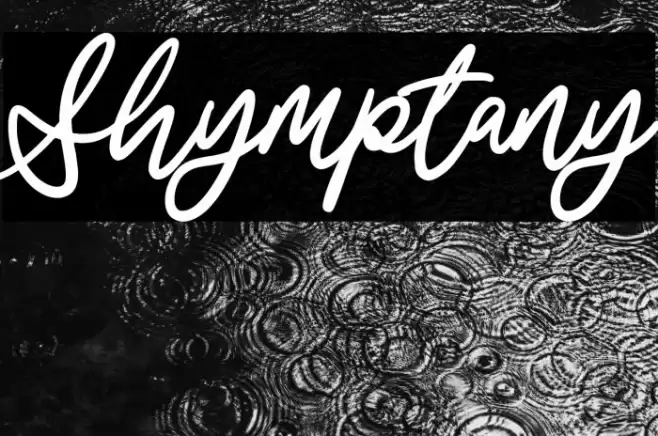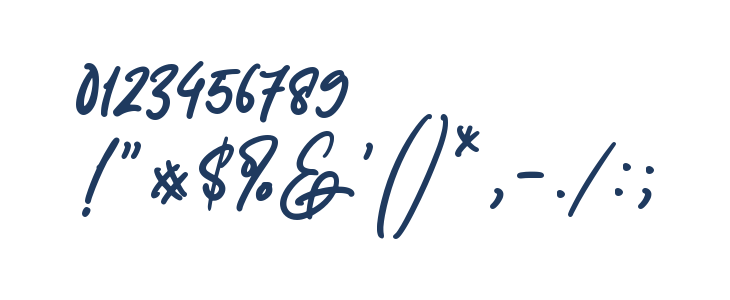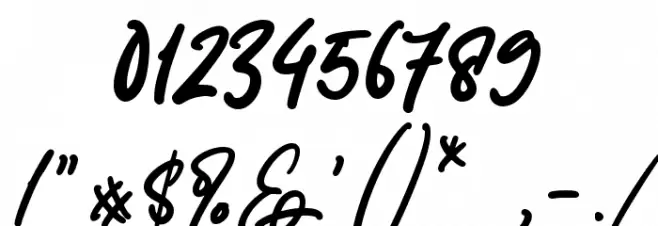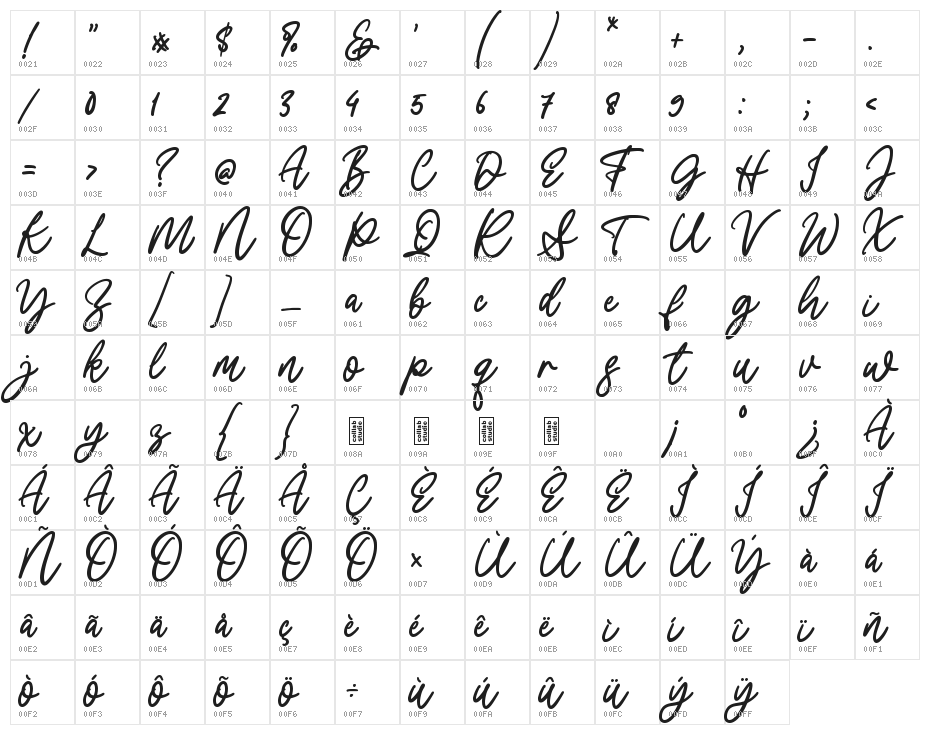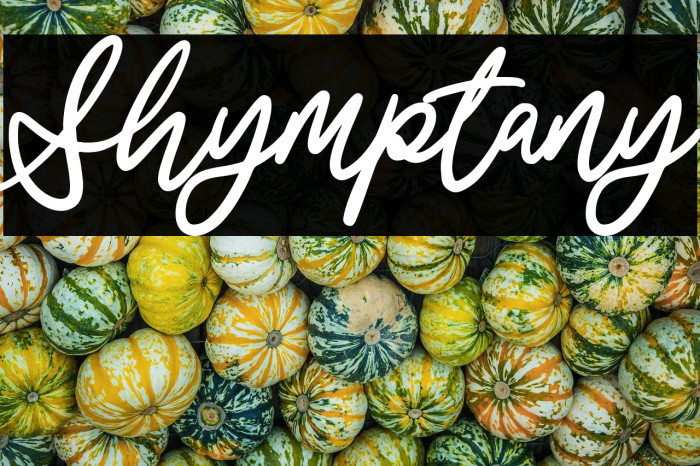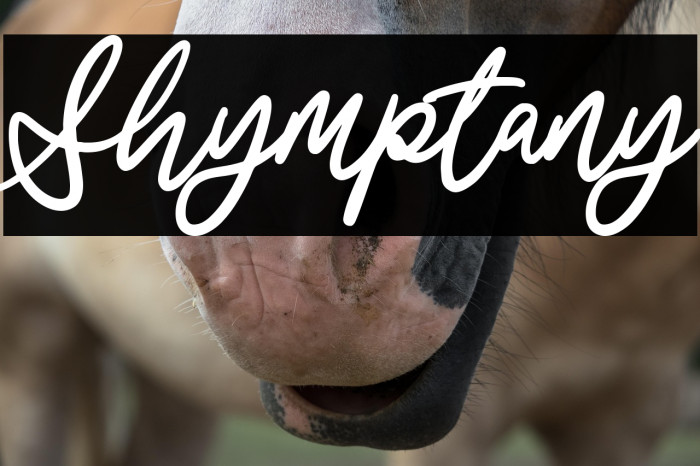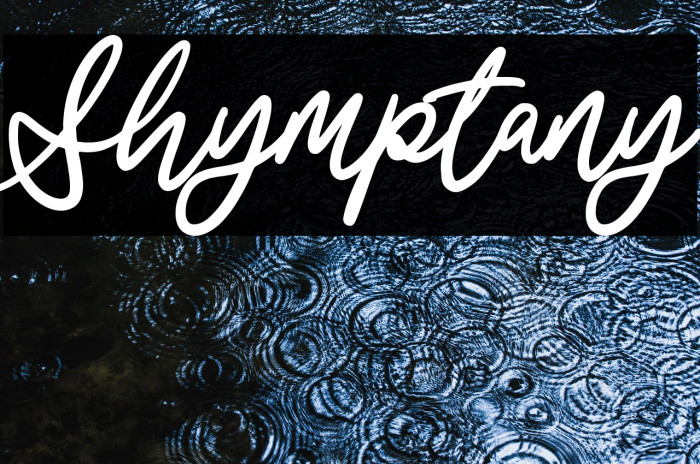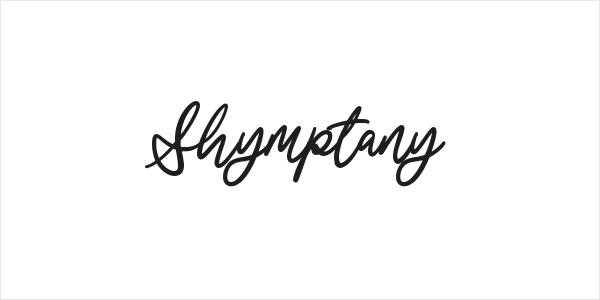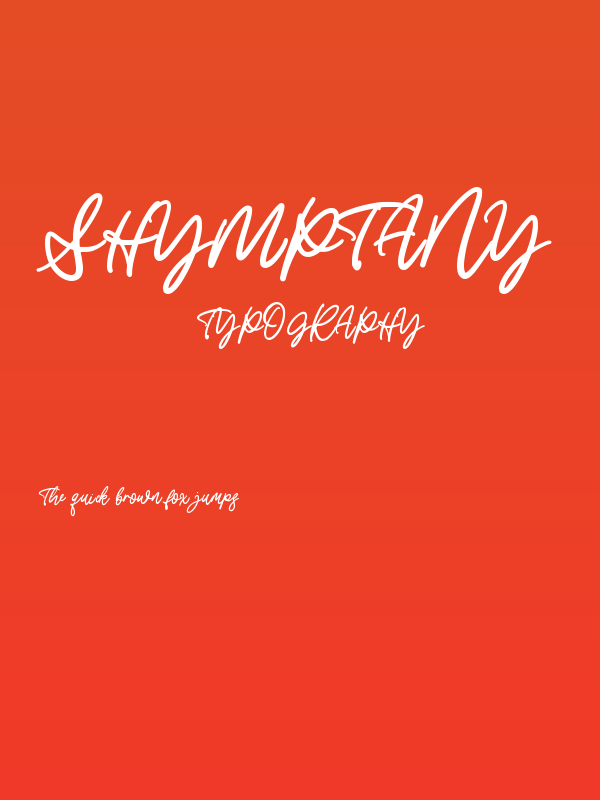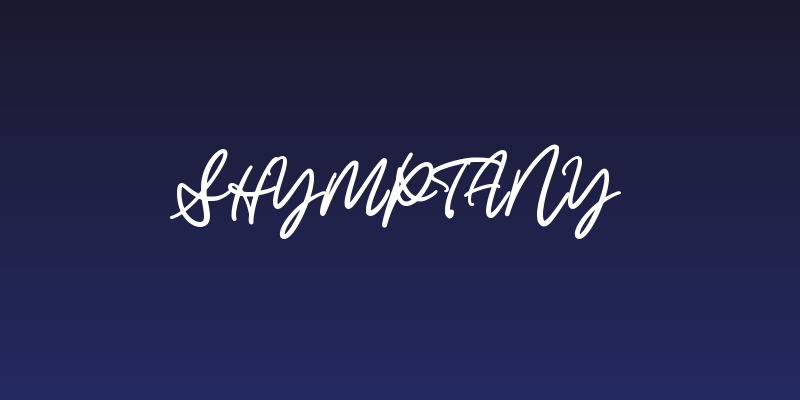
Shymptany Font
Shymptany Description
This font features a dynamic and flowing script style, characterized by its elegant, cursive letterforms. The strokes are smooth and connected, giving it a handwritten appearance that is both stylish and sophisticated. The uppercase letters are bold and prominent, while the lowercase letters maintain a consistent fluidity, enhancing readability. Numbers and special characters are crafted with the same attention to detail, ensuring uniformity across all elements. The overall design exudes a sense of creativity and personal touch, making it ideal for projects that require a personal or artistic flair.
A dynamic, flowing script font with elegant cursive letterforms from Regular fonts.
- Proposed Projects: Ideal for wedding invitations, greeting cards, branding, and logo design.
- Use Case: Logos, Invitations, Artistic projects